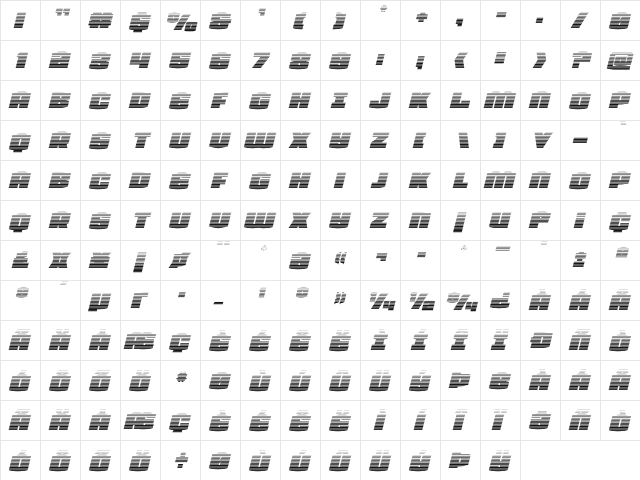
Team Galaxy Gradient Italic Regular
Design Context for Team Galaxy Gradient Italic Typeface
Team Galaxy Gradient Italic is a composed and adaptable typeface that performs quietly and consistently across a wide range of design contexts. Its italic angle brings a sense of urgency and motion to the letterforms.